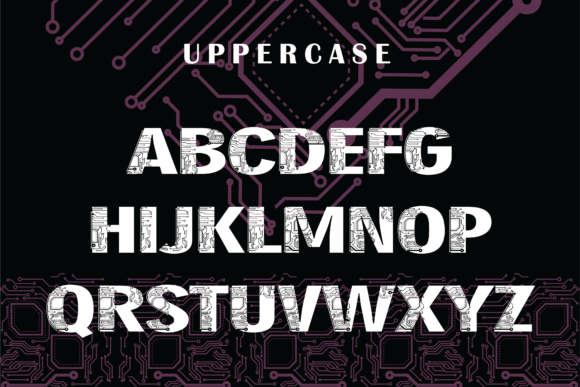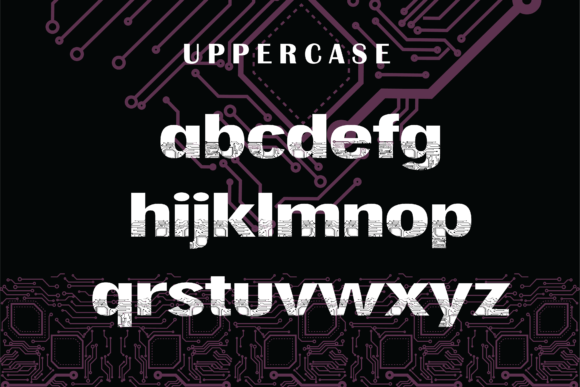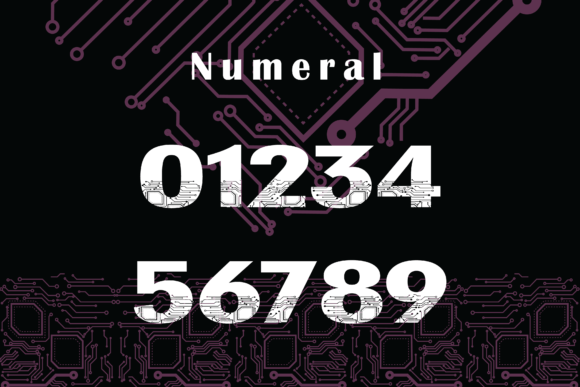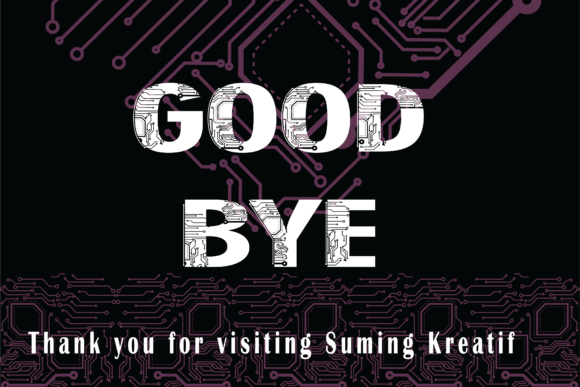
Introducing Chip Font: Elevate Your Designs with Style and Sophistication
In the world of typography, fonts play a crucial role in conveying messages, expressing creativity, and capturing the attention of audiences. For designers, crafters, and marketers, finding the right font can make all the difference in creating visually stunning and effective designs. This is where Chip Font comes in – a stylish and eye-catching typeface designed to add a touch of sophistication to any design project.
What is Chip Font?
Chip is a modern, bold, and elegant font, specifically crafted for use in headlines, titles, and other short bursts of text. Its unique character shapes, bold lines, and flowing curves make it perfect for designs that require a high level of visual impact. Whether you’re working on an advertising campaign, branding project, or print design, Chip Font is the ideal choice to make your message stand out.
Key Features of Chip Font
- Bold Lines and Elegant Curves: Chip Font boasts bold lines that give it a strong and confident presence, while its elegant curves add a touch of sophistication and refinement.
- Unique Character Shapes: Each character in Chip Font has been carefully crafted to create a unique and distinctive look that sets it apart from other fonts.
- High Versatility: Chip Font is perfect for a wide range of design applications, including advertising, branding, print design, and more.
- Easy to Read: Despite its bold and elegant design, Chip Font remains easy to read, making it perfect for use in headlines, titles, and short paragraphs of text.
Use Cases for Chip Font
Chip Font is an incredibly versatile typeface that can be used in a variety of design projects. Here are some of the most popular use cases:
- Advertising: Use Chip Font to create eye-catching headlines and titles that grab the attention of your target audience.
- Branding: Chip Font is perfect for creating logos, taglines, and other branding elements that require a high level of sophistication and style.
- Print Design: Whether you’re working on a brochure, flyer, or business card, Chip Font is a great choice for adding a touch of elegance and refinement to your design.
Why Choose Chip Font?
With so many fonts available, why choose Chip Font? Here are just a few reasons why designers and crafters love working with Chip:
- Unique and Memorable: Chip Font is a one-of-a-kind typeface that will help your designs stand out from the crowd.
- High Quality: Chip Font is designed to the highest standards, ensuring that it looks great in any design project.
In conclusion, Chip Font is a stylish and eye-catching typeface that’s perfect for designers, crafters, and marketers looking to add a touch of sophistication to their design projects. With its bold lines, elegant curves, and unique character shapes, Chip Font is sure to make your message stand out. Whether you’re working on an advertising campaign, branding project, or print design, Chip Font is the ideal choice for creating visually stunning and effective designs.